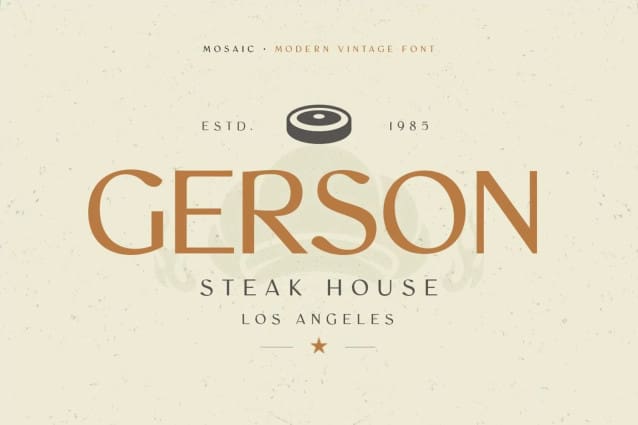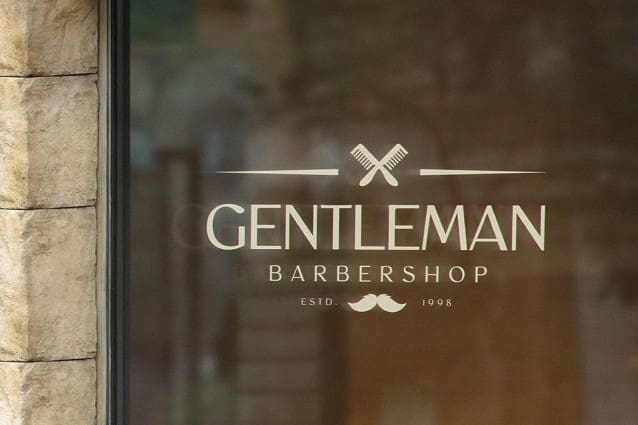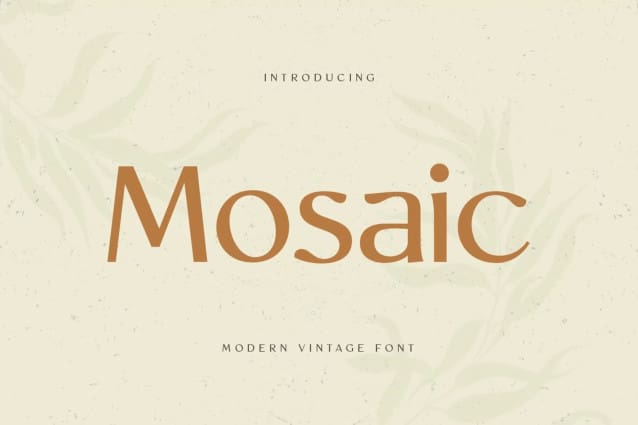
Mosaic Font
Mosaic Font a Serif Vintage font that we created special for classy branding needs, with extra ligature in unique and vintage shape add value of your brand. It’s so nice to leverage designer or product owner that need solutions to make their design look more stylish and casual.